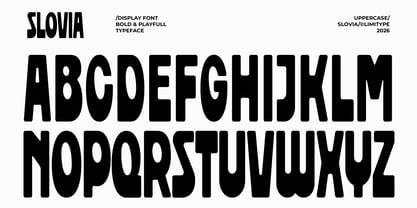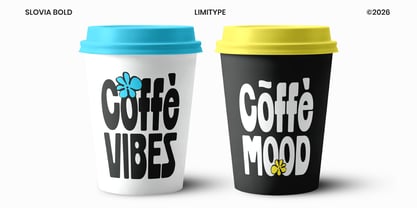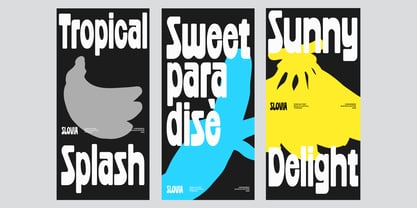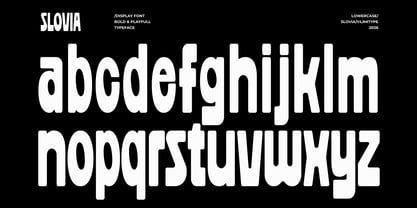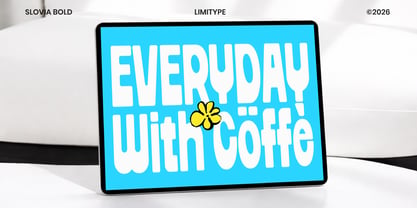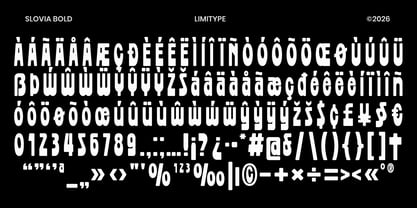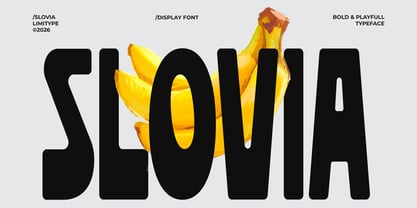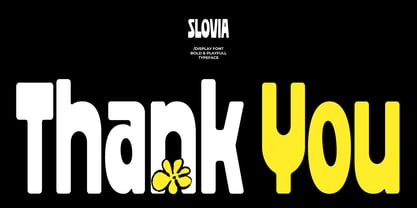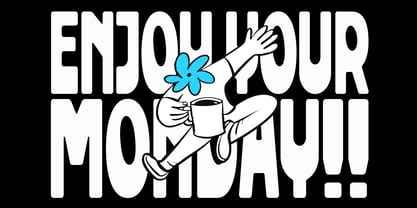
Slovia
por limitype
La familia tipográfica Slovia fue diseñada por Muhammad Muammar, Furqan Sudirman y publicada por limitype. Slovia contiene 1 estilos. Más información sobre esta familia
Slovia is a bold condensed font with playful forms and unique character, designed to bring energetic personality and standout visual appeal to every design project. Its distinctive style combines modern creativity with a strong structure, making it highly suitable for branding, logos, posters, packaging, headlines, and trendy visual identities that capture attention across both digital and print media.
Slovia available with:
• Uppercase
• Lowercase
• Number
• Symbols
• Multilingual
Diseñadores: Muhammad Muammar, Furqan Sudirman
Fundición: limitype